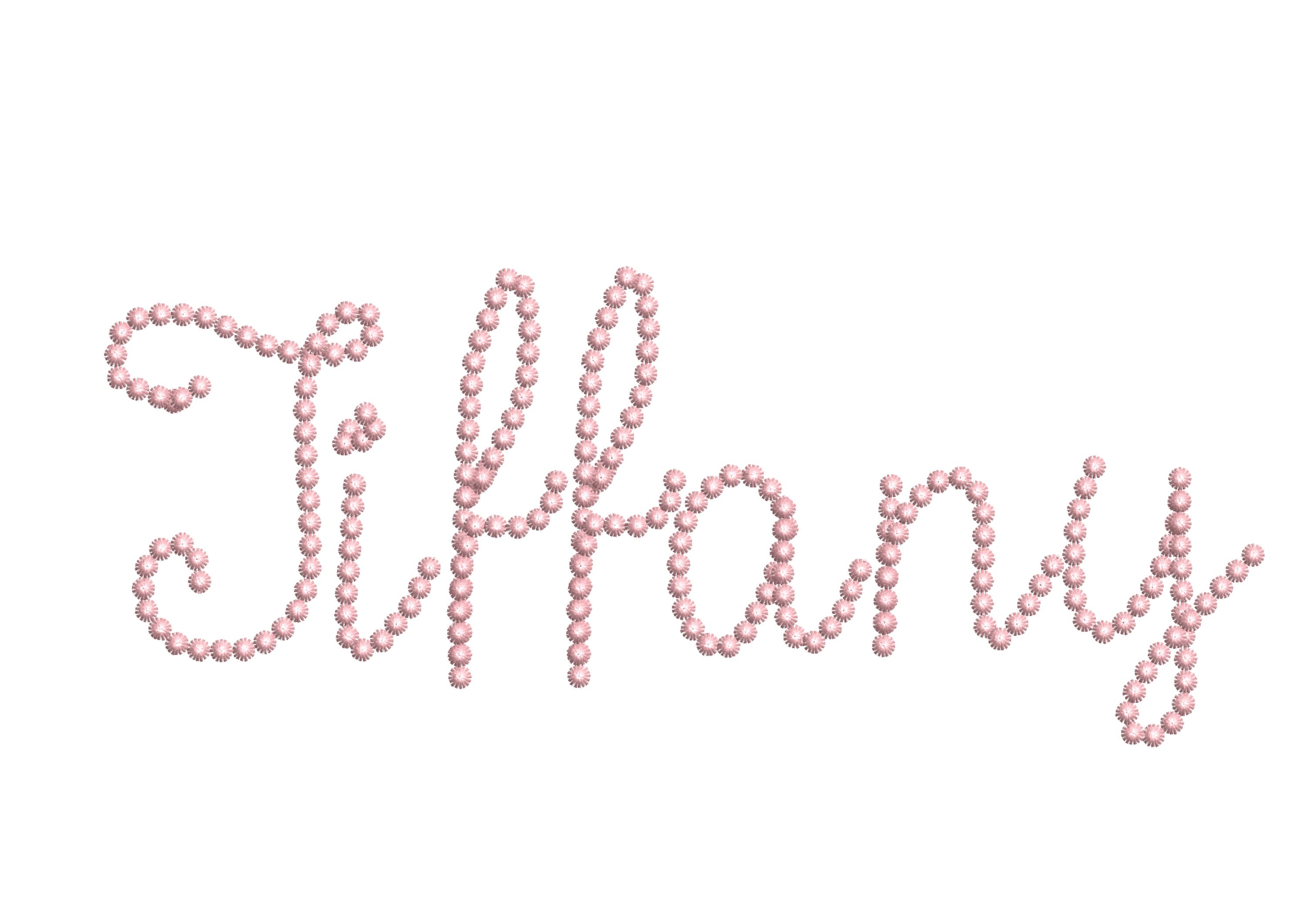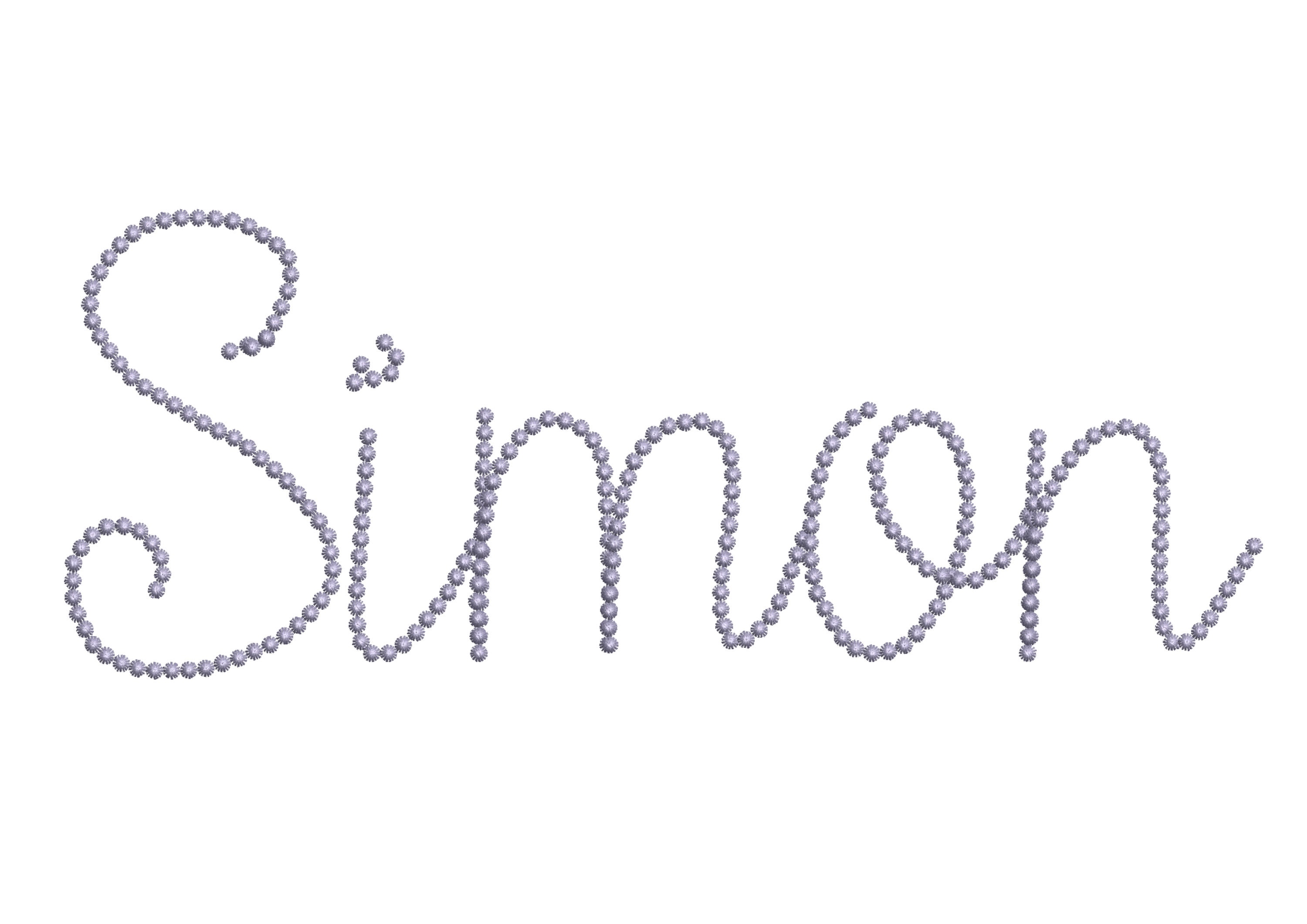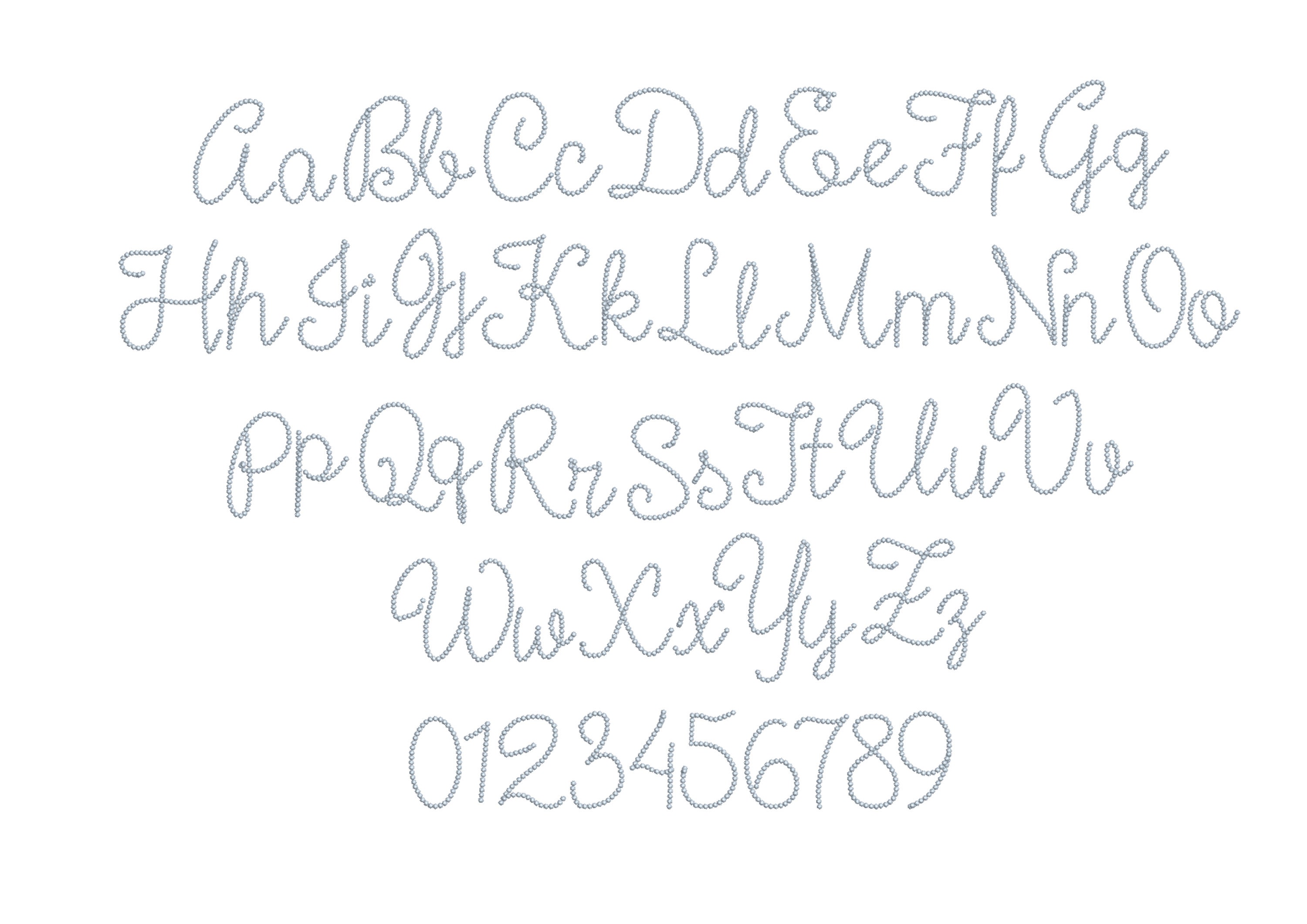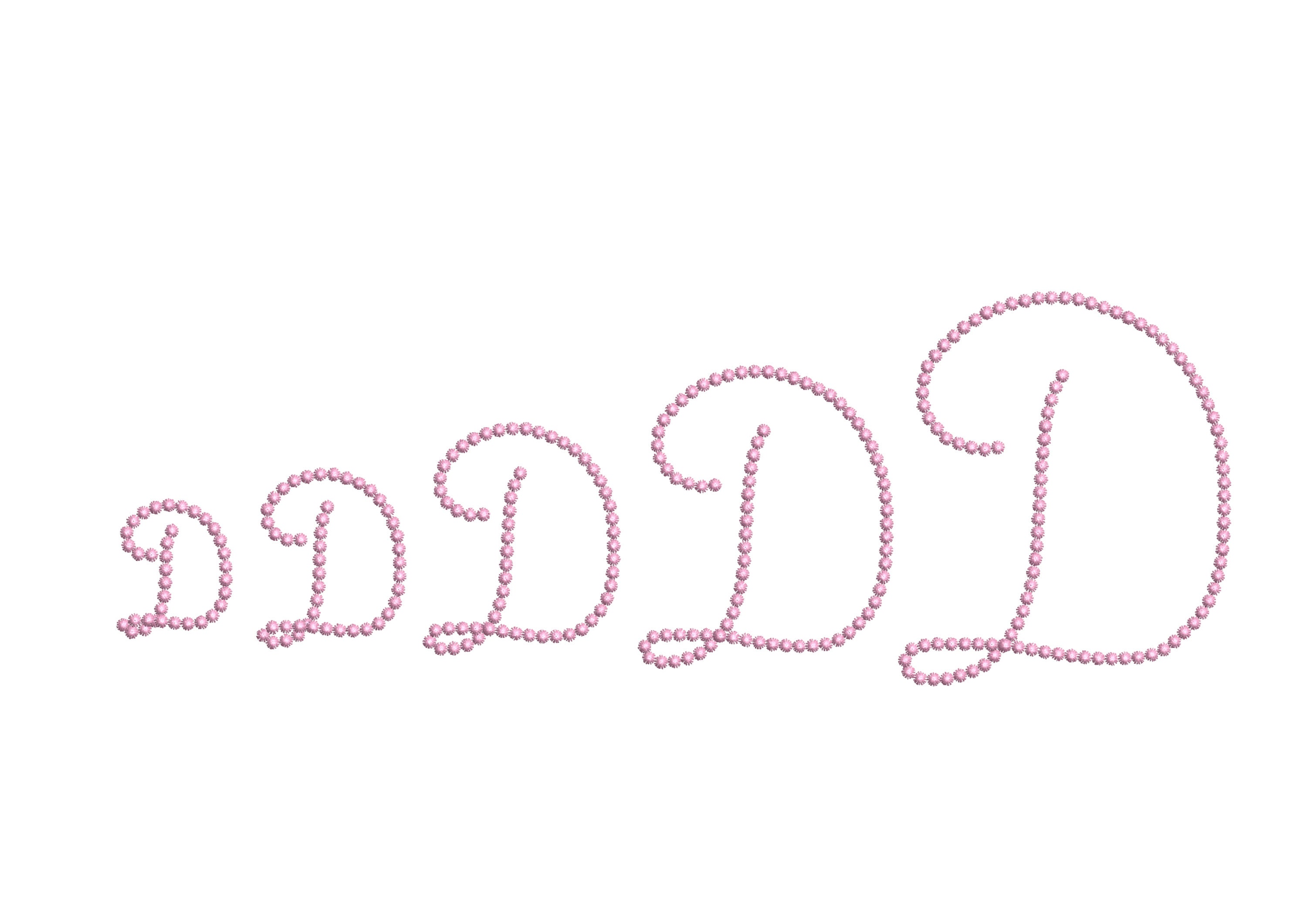
Pearl stitch Tiffany handwritten script cursive Font alphabet letters machine embroidery designs many sizes 1.5 thru 4.3in monogram name BX included
Uppercase and lowercase letters, numbers.